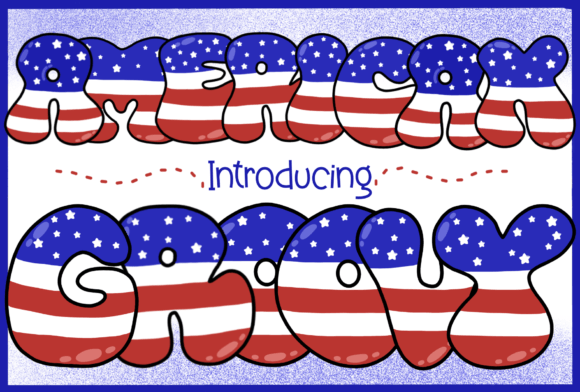
Get Ready to Groove with the Spirit of America
As a designer, have you ever found yourself searching for the perfect font to capture the essence of a patriotic project? Perhaps you’re working on a Fourth of July-themed poster or invitation, and you want to add a touch of American pride to your design. I know I have! Remember that moment when you stumbled upon a font that perfectly embodies the spirit of a project, and your creative juices start flowing? For me, that moment came when I discovered the American Groovy Font.
This captivating decorative font is inspired by the iconic Stars and Stripes of the United States of America’s flag. It’s the perfect choice for designers who want to add a vibrant and celebratory atmosphere to their projects. With its unique design, the American Groovy Font is sure to become a valuable addition to any designer’s toolkit.
Key Features of American Groovy Font
- Unique Characteristics: The font features a distinctive, hand-drawn style with a retro flair, making it perfect for creating a nostalgic or vintage aesthetic in designs.
Designer Review: American Groovy Font
First of all, let’s talk about what does work well in the American Groovy Font. ✨ I love the retro vibe it brings to any design project. The font is reminiscent of the 1960s and 1970s, making it perfect for music festivals, vintage-themed events, or even just for adding a touch of nostalgia to your branding.
Here are some specific things I appreciate about this font:
- Unique, hand-drawn feel that adds character to any text
- Wide range of styles and weights to choose from
Now, let’s talk about the limitations. ⚠️ While the American Groovy Font is a great choice for certain projects, it may not be the best option for every design task. Here are a few things to keep in mind:
- May be difficult to read in small sizes or for extended periods of time
- Not suitable for formal or professional applications
- Some characters may appear a bit inconsistent or rough around the edges
Overall, I think the American Groovy Font is a fun and quirky addition to any design arsenal. While it may not be the best choice for every project, it’s definitely worth considering for those that require a retro or vintage vibe.
For optimal results, use American Groovy Font in bold or italic styles to add emphasis to your text.
Combine American Groovy Font with other fonts to create a unique and eye-catching visual effect.
Use American Groovy Font for:
- Designing posters and flyers for music festivals or concerts.
- Creating graphics for retro-themed events or parties.
- Adding a fun and playful touch to marketing materials or advertisements.